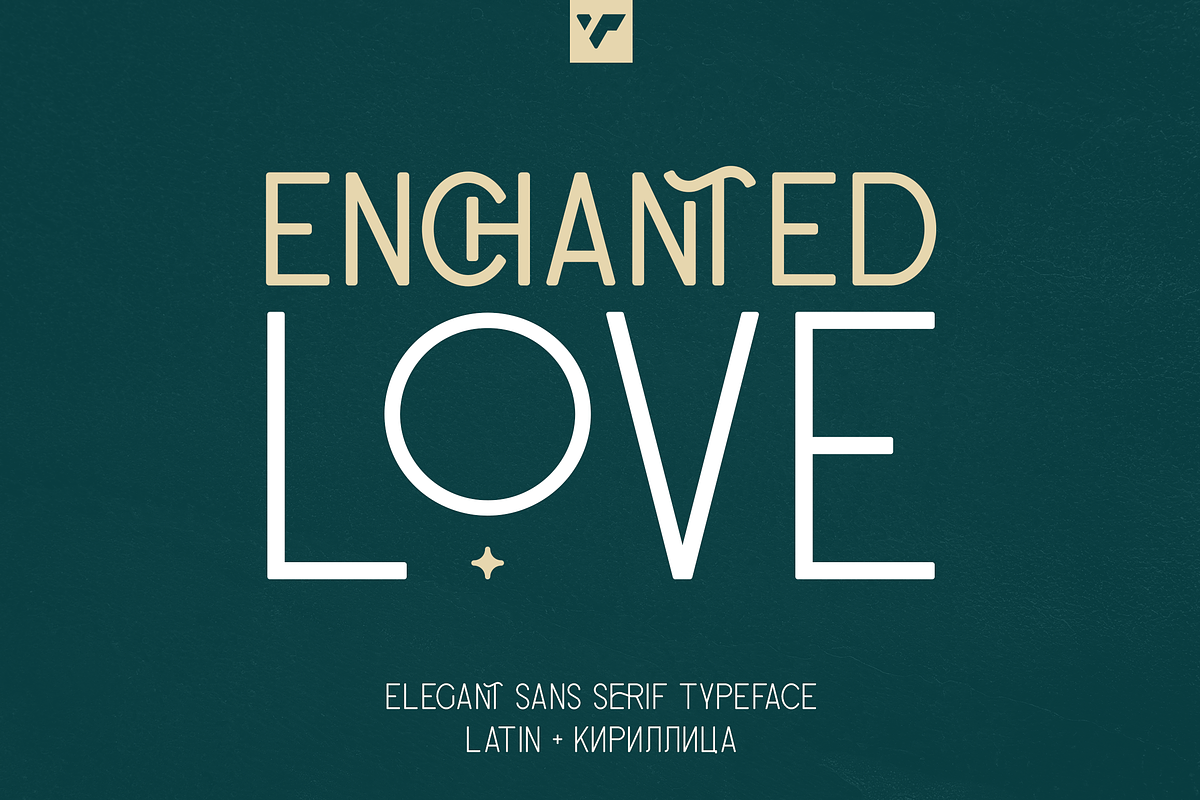
Enchanted Love - Sans Serif Typeface Free Download
Enchanted Love – Sans Serif Typeface Free Download
Enchanted Love – Sans Serif Typeface Free Download is a whimsical and elegant sans serif font designed to bring a magical, romantic feel to your creative projects. With its soft curves, clean lines, and subtle fairytale charm, this font is perfect for wedding invitations, love-themed branding, greeting cards, product packaging, and dreamy social media graphics.
Combining modern simplicity with a touch of enchantment, Enchanted Love – Sans Serif Typeface Free Download is versatile and graceful—making it ideal for both headlines and body text in projects that call for a gentle yet stylish presence.